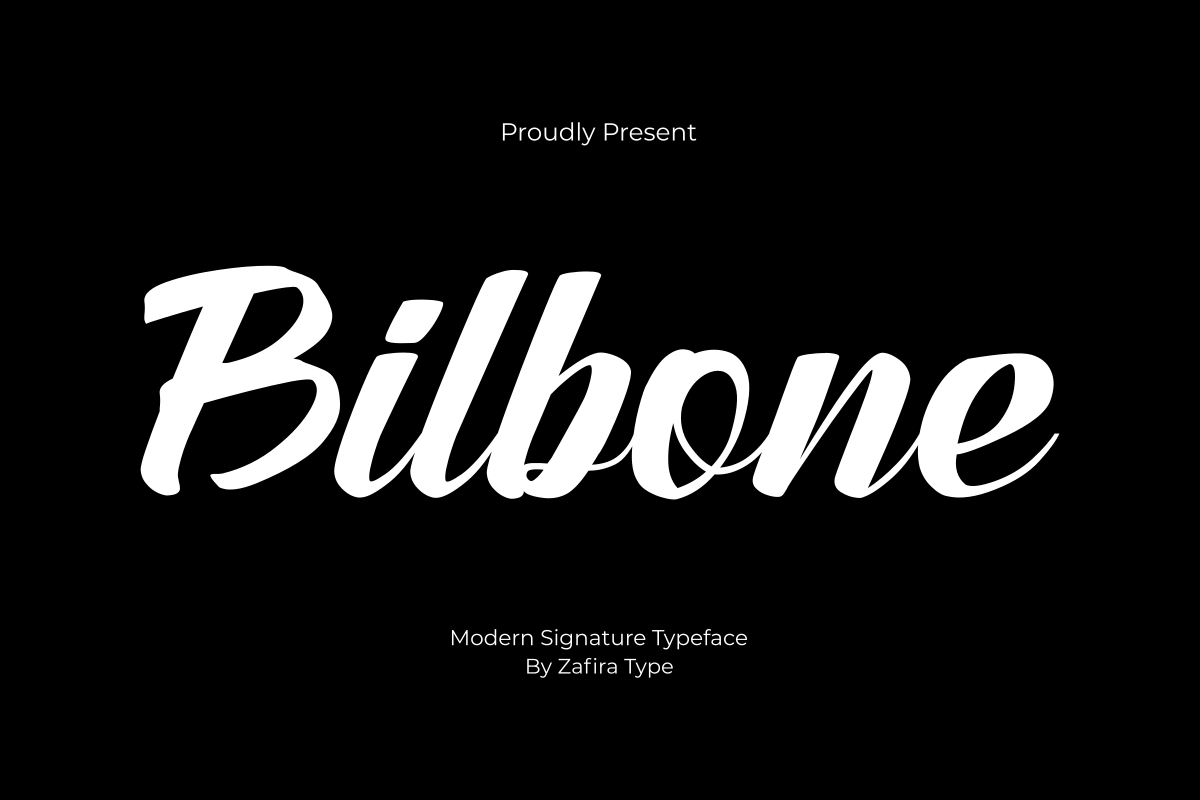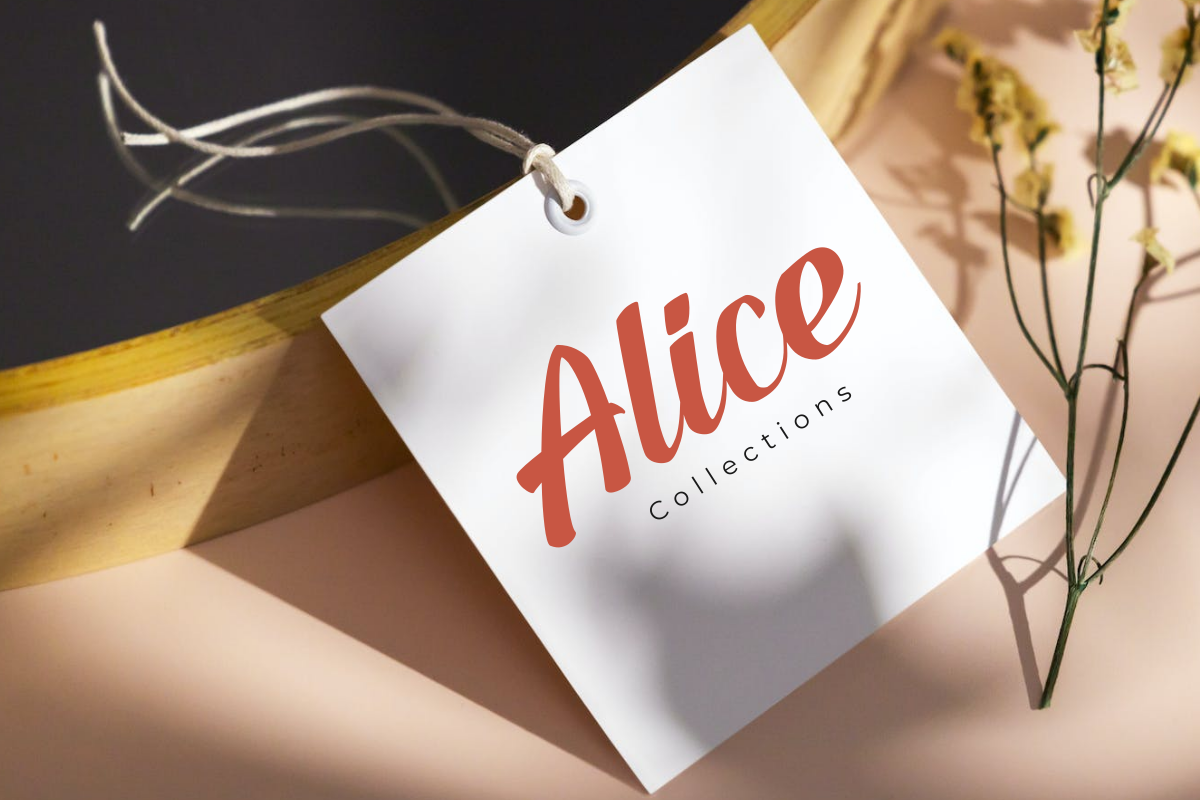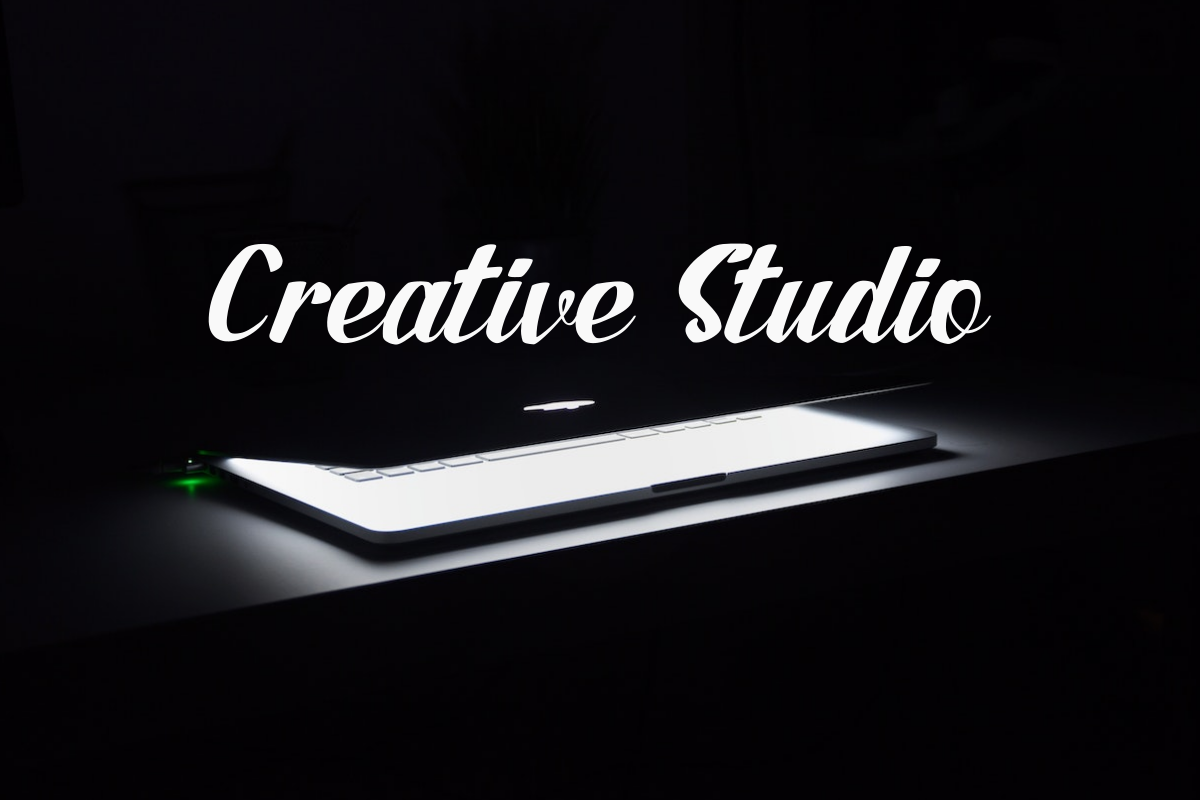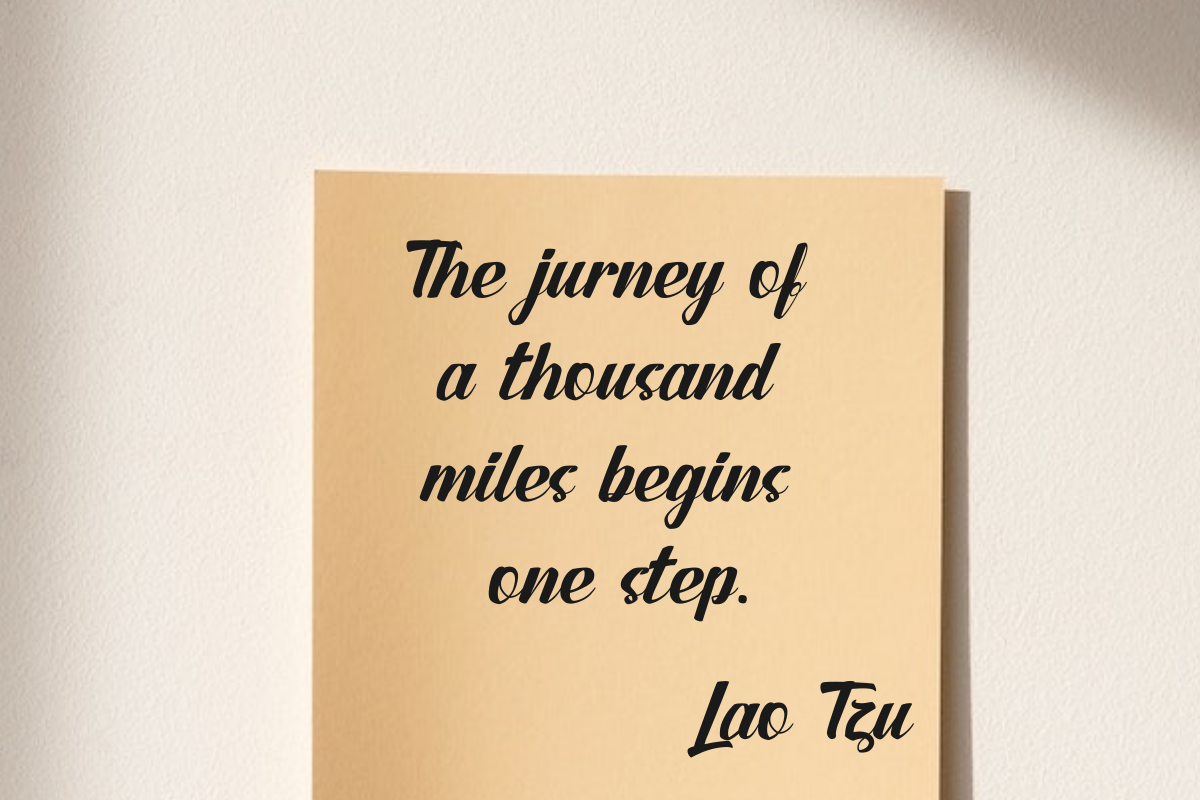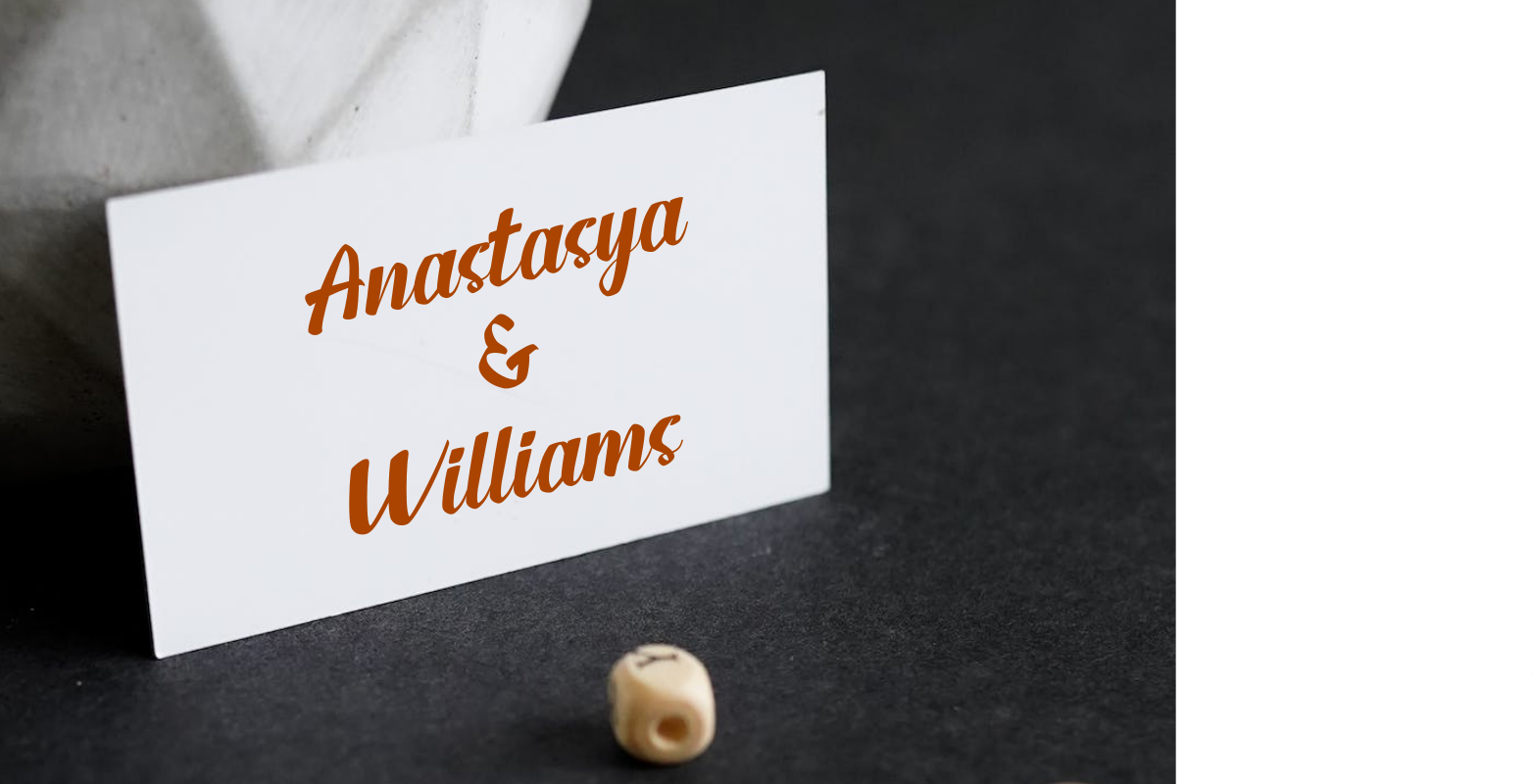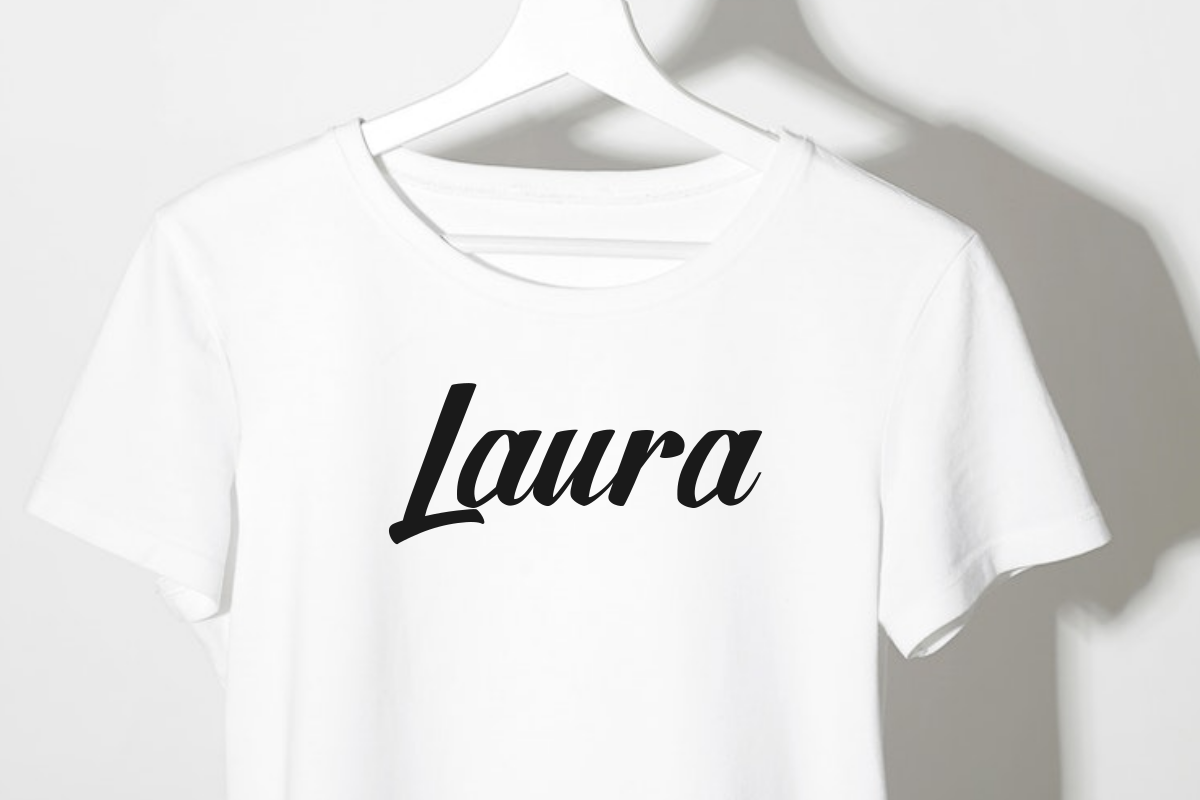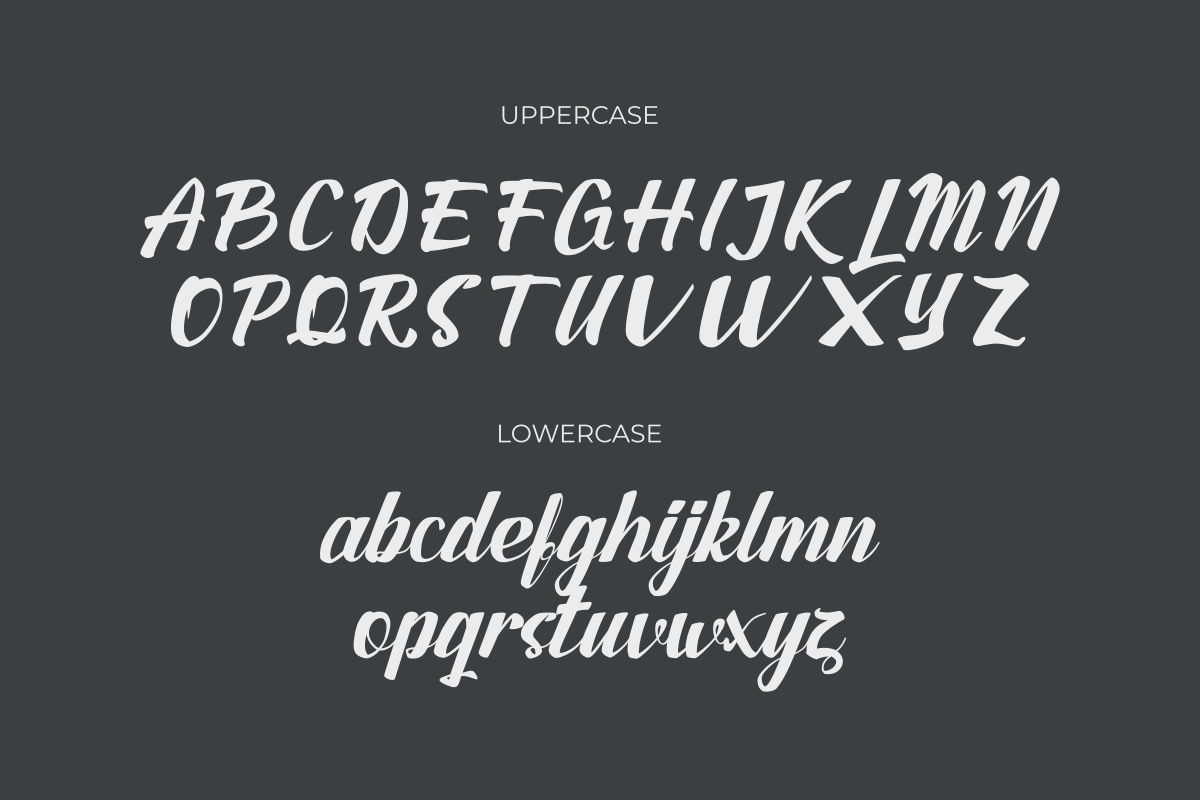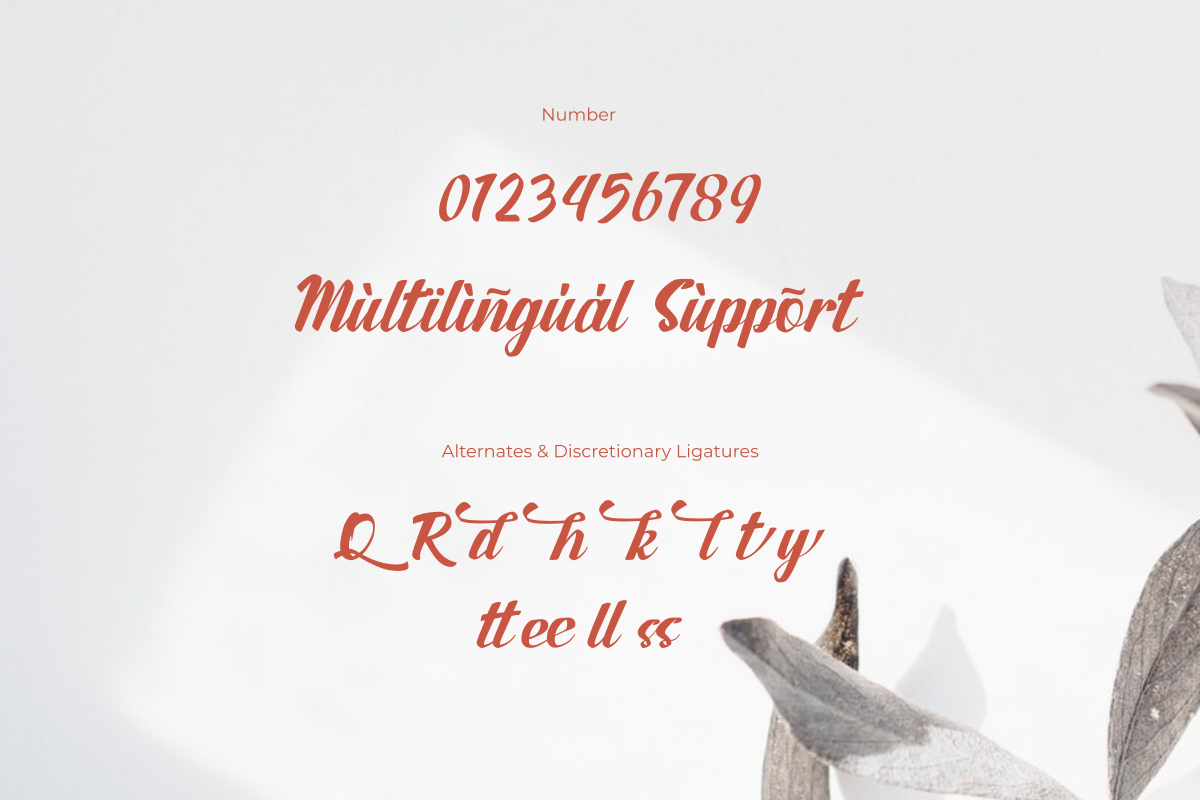
Bilbone
Bilbone is a signature font. It has a bold and smooth style and is perfect for making any design stand out. Best suitable for branding, packaging, print titles, t-shirt design, food design, and similar projects.